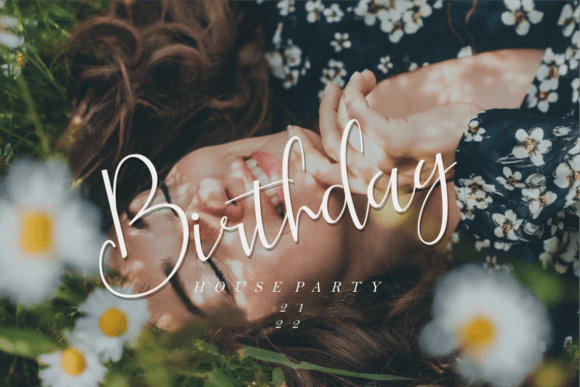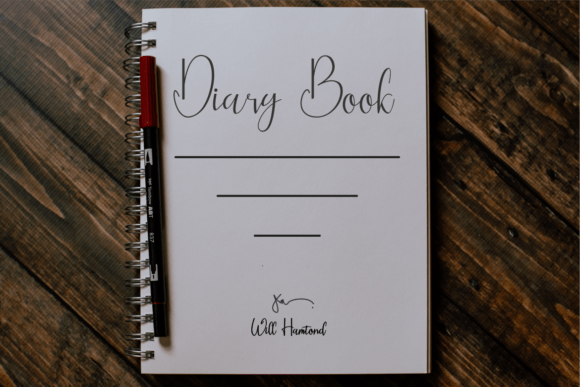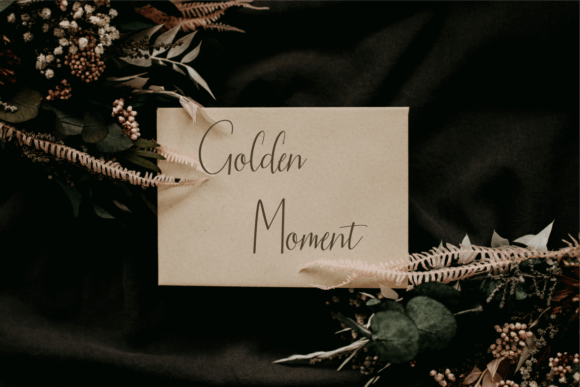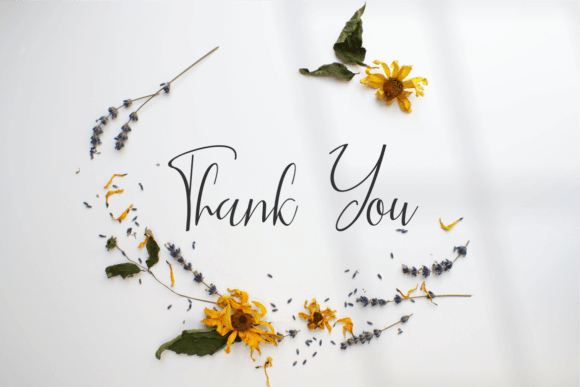
Baitulis Font: The Elegant and Charming Choice for Designers and Crafters
In the world of typography, fonts play a crucial role in conveying the tone and personality of a design. For designers and crafters looking for a font that exudes elegance and charm, Baitulis Font is an excellent choice. This beautiful handwritten font is perfect for a variety of design projects, from wedding invitations to business cards, and is sure to add a touch of sophistication to any design.
The Beauty of Baitulis Font
Baitulis Font is a stunning example of a handwritten font that feels equally charming and elegant. Its delicate lines and curves give it a whimsical feel that’s perfect for designs that require a personal touch. The font’s elegant appearance makes it ideal for use on wedding invitations, thank you cards, and other formal designs. Whether you’re a designer looking for a font to use in your work or a crafter looking for a font to use in your DIY projects, Baitulis Font is a great choice.
Versatility of Baitulis Font
One of the best things about Baitulis Font is its versatility. It’s a font that can be used in a wide range of design projects, from formal to informal. Here are some examples of designs where Baitulis Font looks stunning:
- Wedding invitations: Baitulis Font is perfect for wedding invitations, adding a touch of elegance and romance to your design.
- Thank you cards: The font’s charming and elegant appearance makes it ideal for use on thank you cards.
- Quotes: Baitulis Font is a great choice for use on quotes, adding a touch of whimsy and personality to your design.
- Greeting cards: The font’s elegant appearance makes it perfect for use on greeting cards, from birthdays to holidays.
- Logos: Baitulis Font can be used to create a beautiful and elegant logo for your business or brand.
- Business cards: The font’s professional appearance makes it ideal for use on business cards.
Why Designers and Crafters Love Baitulis Font
Designers and crafters love Baitulis Font for many reasons. Here are a few:
- Elegant appearance: Baitulis Font has an elegant appearance that’s perfect for designs that require a touch of sophistication.
- Handwritten feel: The font’s handwritten feel gives it a personal touch that’s perfect for designs that require a human touch.
- Versatility: Baitulis Font can be used in a wide range of design projects, from formal to informal.
- Easy to read: The font is easy to read, making it perfect for use on designs that require a lot of text.
Tips for Using Baitulis Font
Here are a few tips for using Baitulis Font in your designs:
- Use it sparingly: Baitulis Font is a beautiful font, but it can be overwhelming if used too much. Use it sparingly to add a touch of elegance to your design.
- Pair it with other fonts: Baitulis Font pairs well with other fonts, such as sans-serif fonts. Experiment with different font combinations to find the perfect look for your design.
- Adjust the size: Baitulis Font looks great in a variety of sizes. Experiment with different sizes to find the perfect size for your design.
Baitulis Font is a beautiful and elegant font that’s perfect for designers and crafters looking for a handwritten font with a touch of sophistication. Its versatility and elegant appearance make it ideal for use in a wide range of design projects, from wedding invitations to business cards. Whether you’re a designer or crafter, Baitulis Font is a great choice for adding a touch of elegance and charm to your designs.